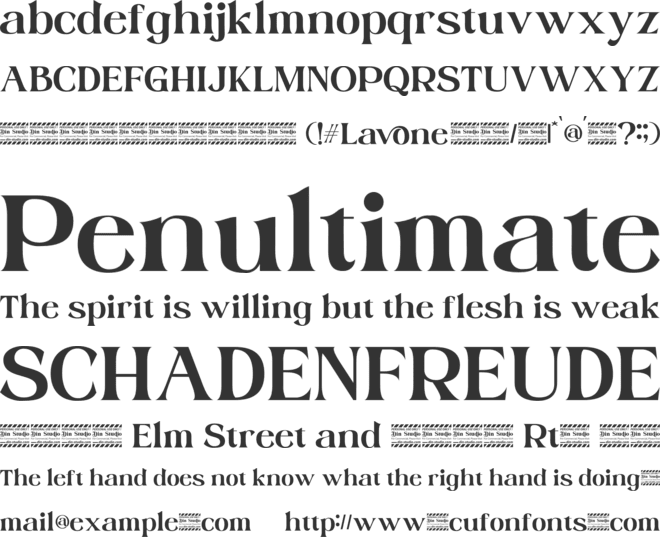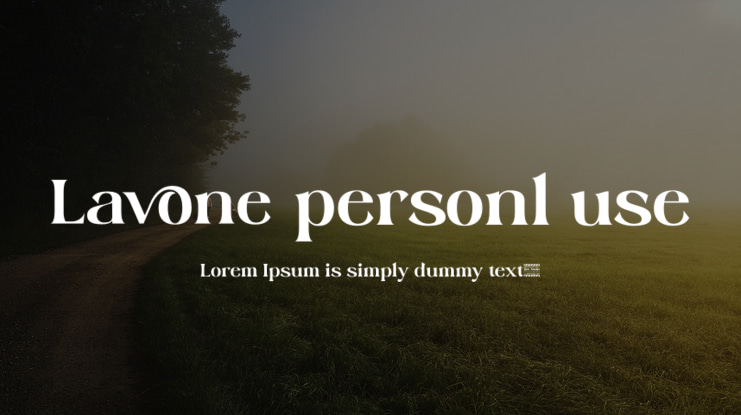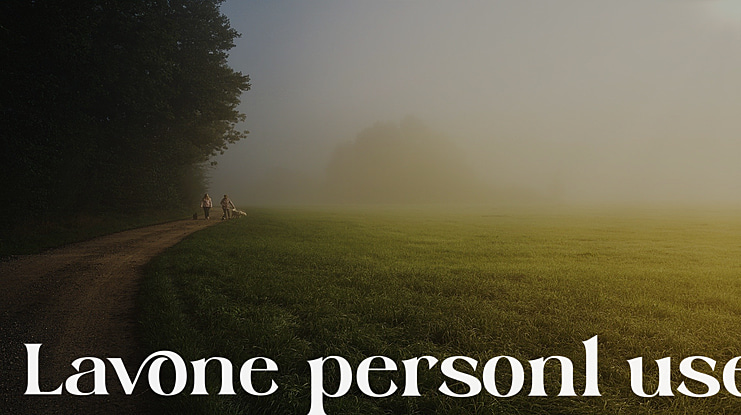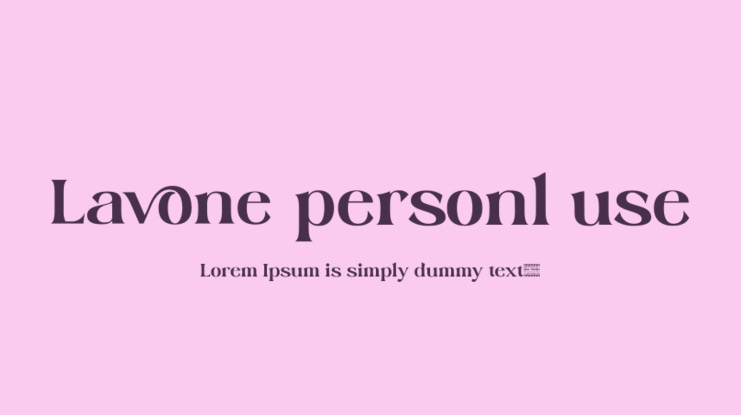
Lavone is a elegant serif typeface. Designed primarily as a captivating handcrafted with style. This typeface that is easy on the eyes font that excels at captivating headlines, or large branding text, the font oozes that cute aesthetic that just makes you go “aww!”